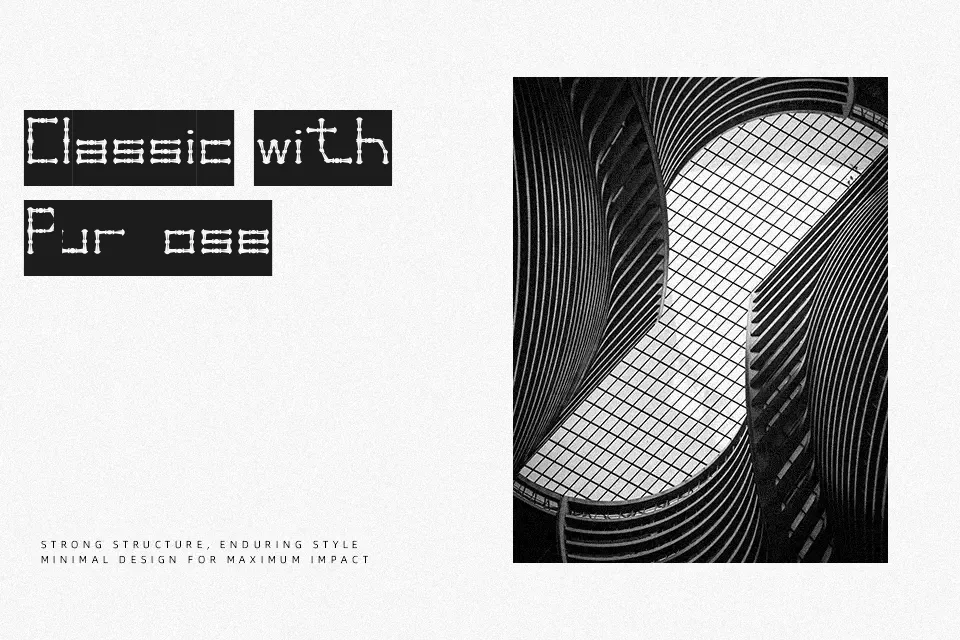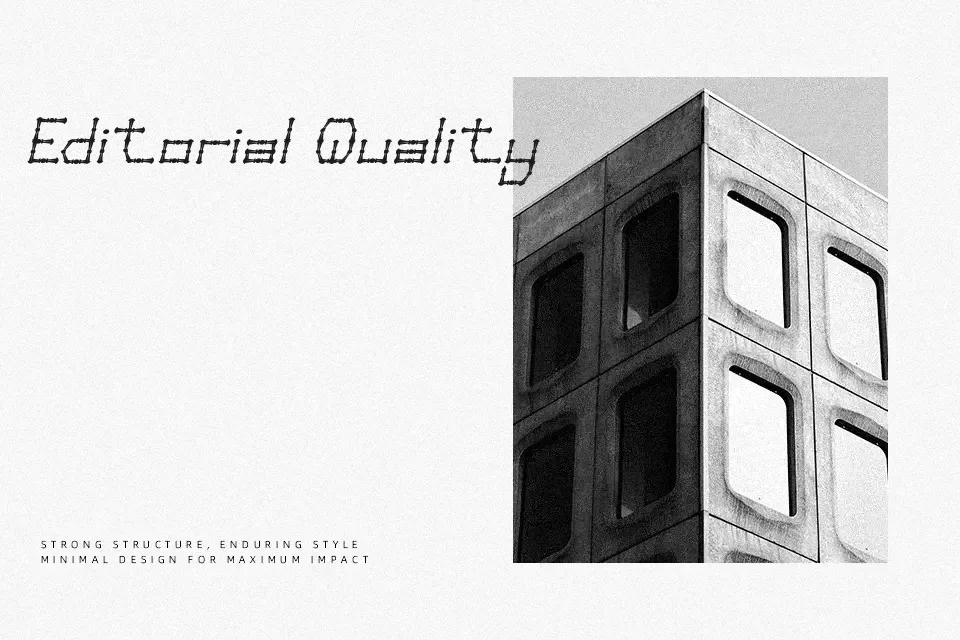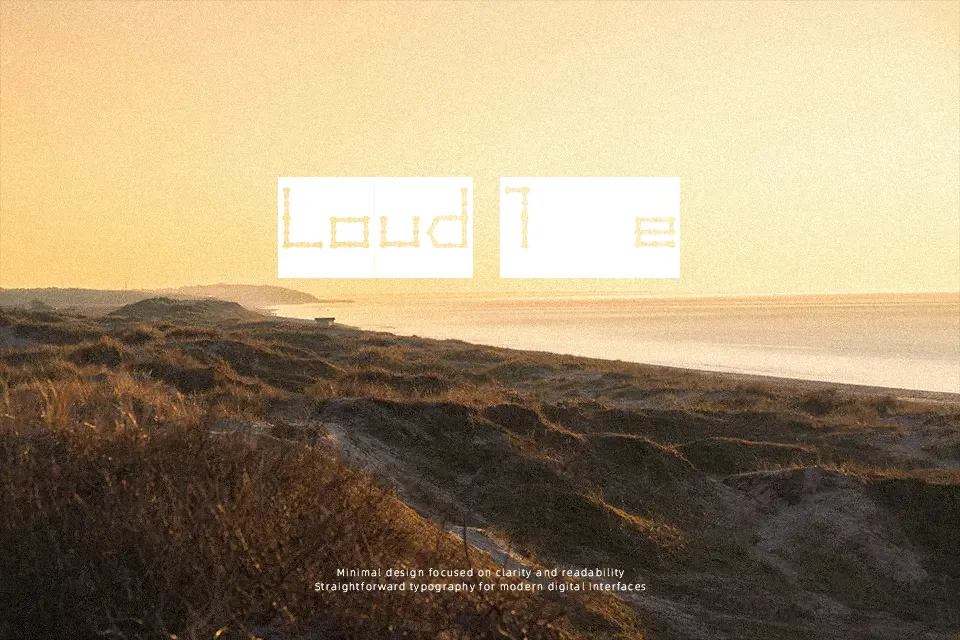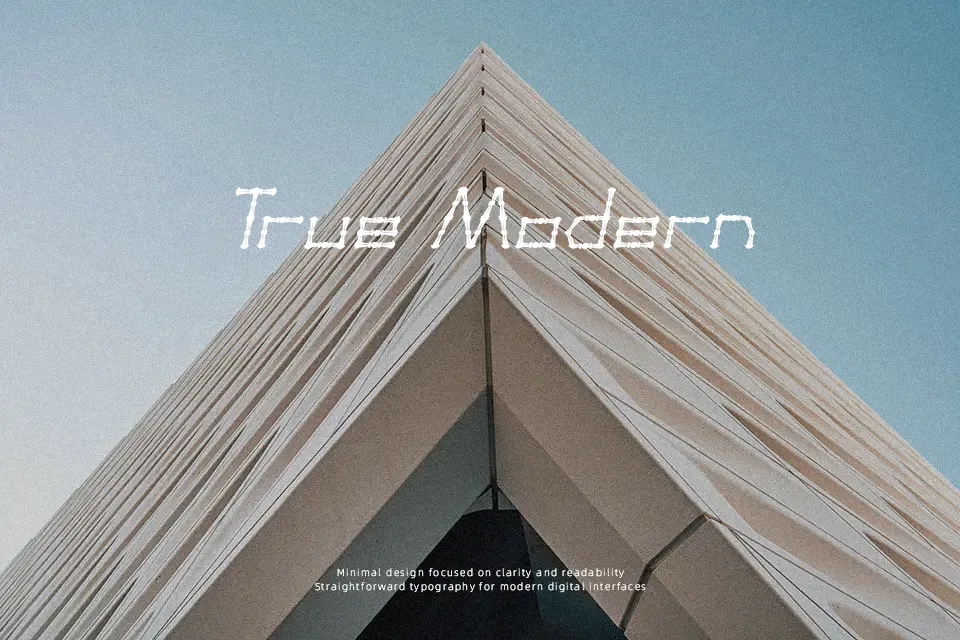
Thin Decorative Font
Thin Decorative Font relies on whisper-thin linear strokes and expansive character width to produce a distinctively minimalist presentation. The letterforms display uniform, hairline weights with geometric curves and generous interior counters that yield an open visual rhythm. Generous spacing between glyphs preserves individual character contours, ensuring dependable readability across large exhibition banners, cinematic title sequences, and editorial spreads. However, the delicate stroke construction causes letterforms to break apart and lose legibility at smaller text scales, making the design ill-suited for dense body paragraphs or compact mobile interfaces. When deployed on expansive surfaces with sufficient contrast, the typeface delivers a refined, sculptural presence that elevates creative headline compositions.
Best For: music festival posters, luxury cosmetics packaging, art exhibition banners, album cover titles
Not Ideal For: printed book body copy, mobile app user interface labels, dense multi-column editorial text, spreadsheet tables